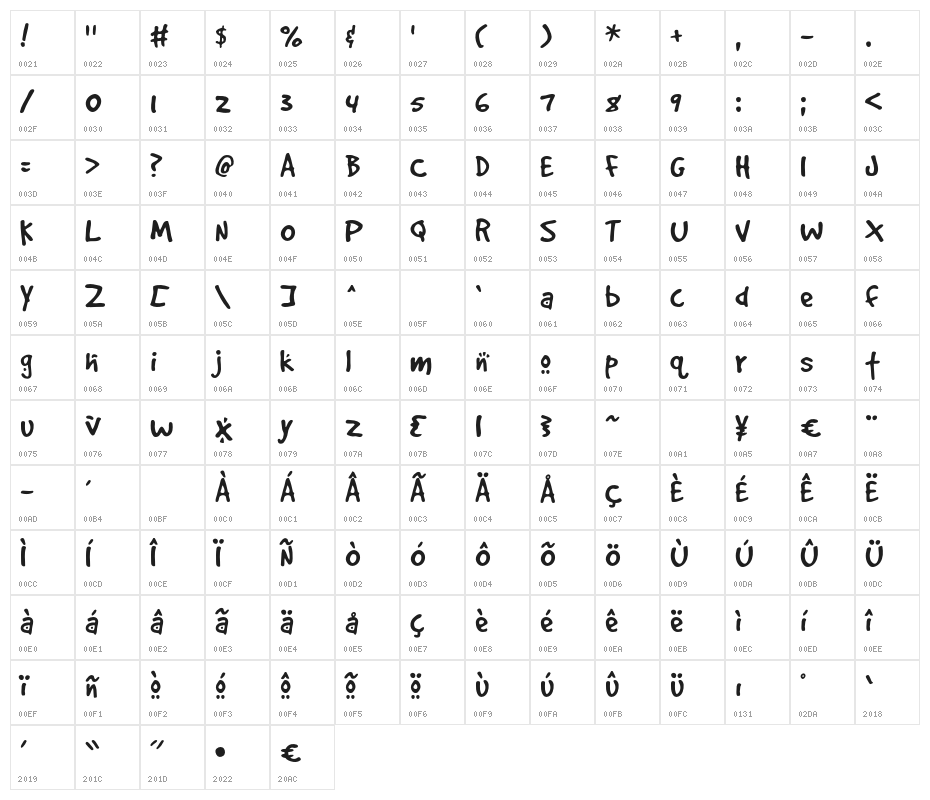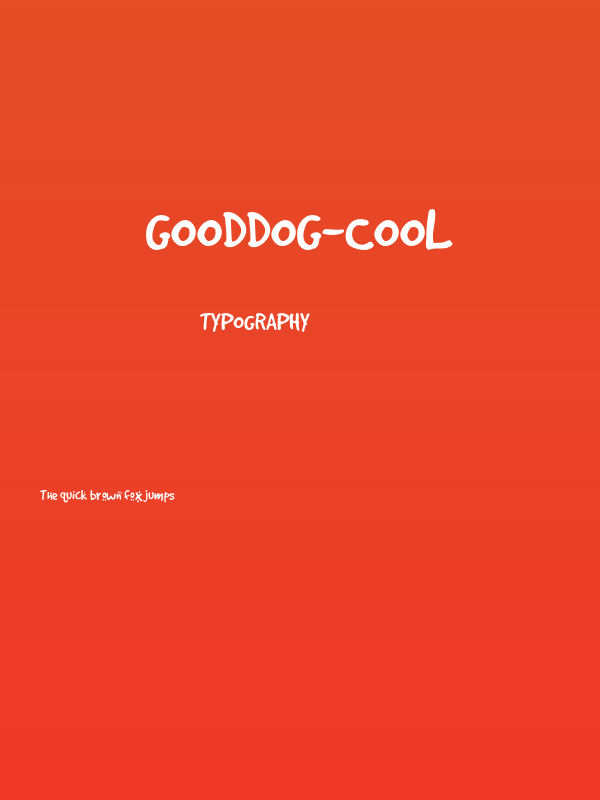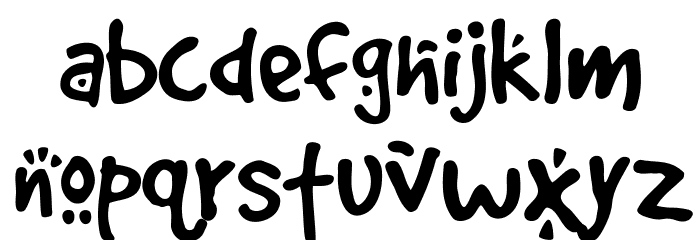
GoodDog-Cool Font
GoodDog-Cool Description
This playful and whimsical font features a handwritten style with bold, rounded characters that convey a sense of fun and creativity. The letters are slightly irregular, adding a casual and friendly feel, perfect for informal and lighthearted projects. The font includes both uppercase and lowercase letters, numerals, and a variety of special characters, all maintaining the same lively and energetic aesthetic. Its unique charm makes it suitable for projects that aim to capture attention and convey a sense of joy and spontaneity.
| Overall Style | Playful |
| Use Case | Logos, Headlines, Informal Text |
| Proposed Projects | Ideal for children's books, playful branding, party invitations, and casual social media graphics. |